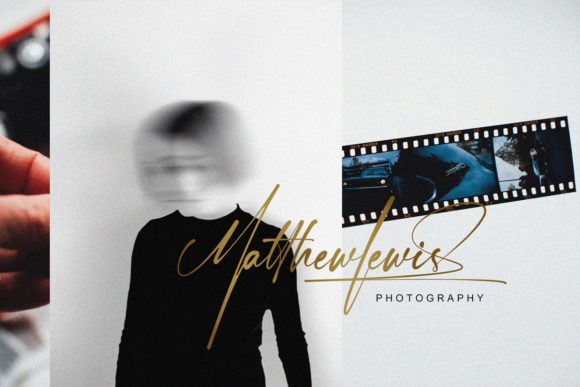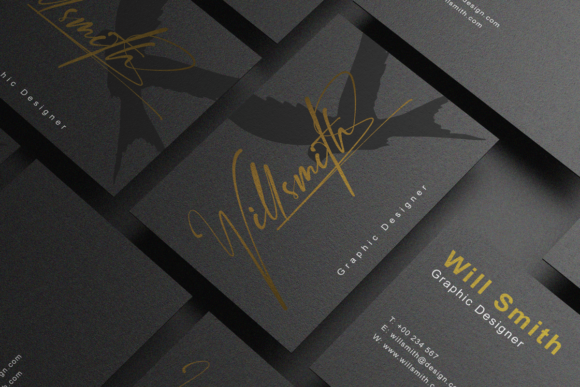
Janelotus Font
db-ku.com - Script & Handwritten -- Janelotus is a luxurious handwritten font. Not too thin and not too thick, balanced and varied, this font was designed to enhance the beauty of your projects. This font is PUA encoded which means you can access all of the glyphs and swashes with ease!